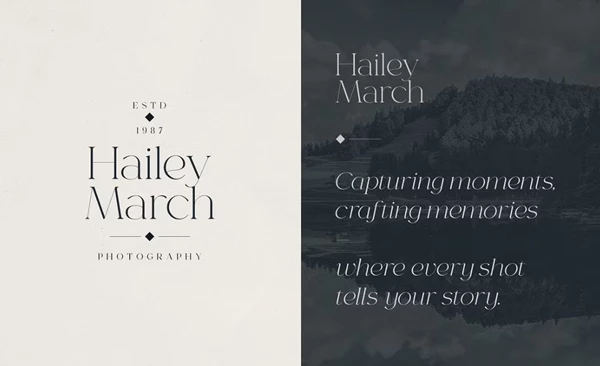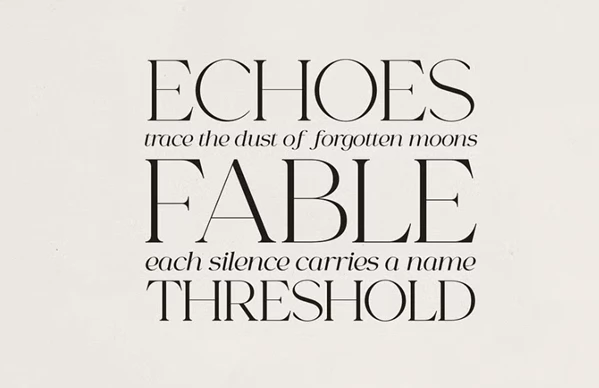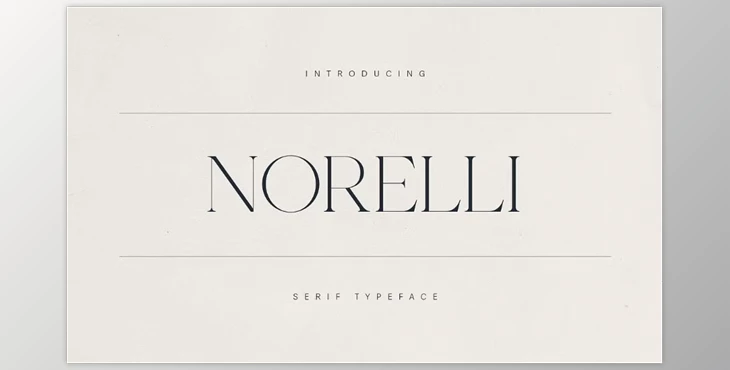
Norelli - A Modern Serif Typeface:
Norelli is a refined serif font that quietly lifts any story with a mix of grace and readability. With clear contrast and soft arches, it tilts between modern and classic, suiting luxury brands, magazines, and polished logos. Whether you are building a spare identity or telling a love tale, each letter carries a hint of lasting charm. Its broad reach covers high-end boxes, invitations, and more, proving useful whenever a project asks for something upscale.
Built for both offset pages and screens, Norelli supports many languages, so your words look stylish no matter who reads them.
Ideal Uses:
- Photography brands
- Interior design studios
- Upscale fashion labels
- Boutique flower shops
- Premium editorial layouts
The typeface covers many languages-Afrikaans, Danish, French, German, Italian, Portuguese, Spanish, Swedish-and more, giving designers the freedom to work on truly global projects.